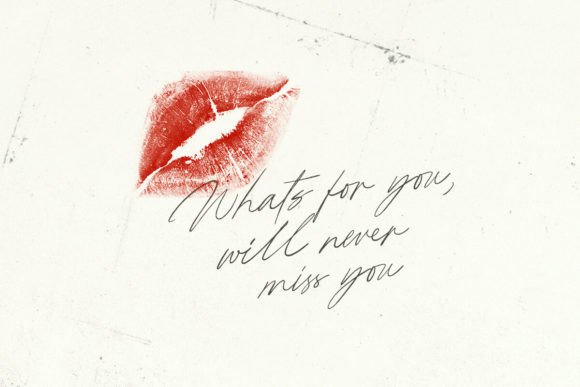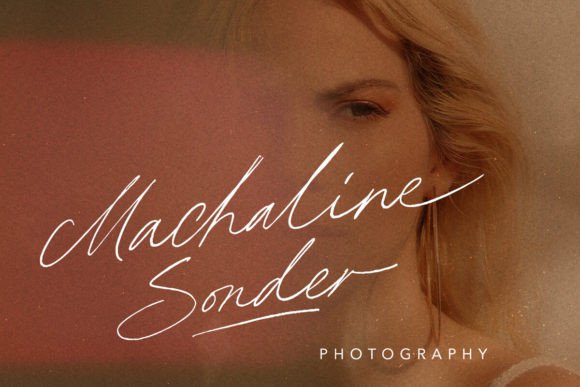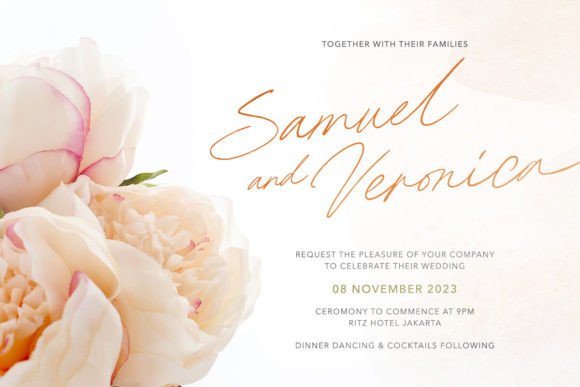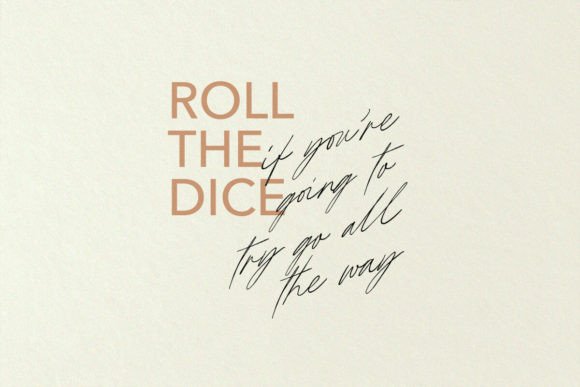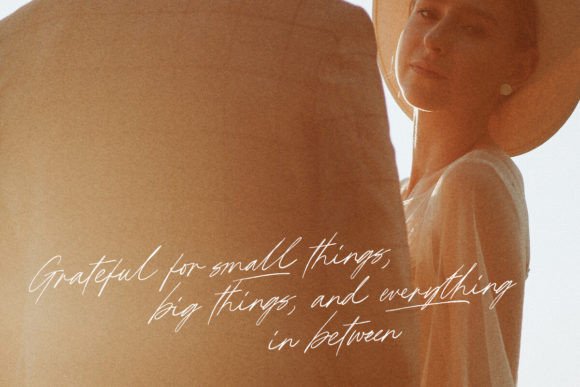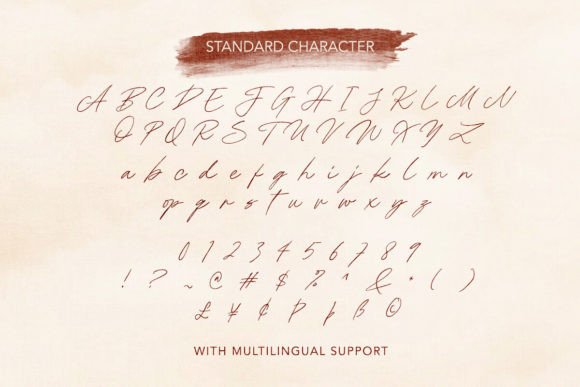
Introduction to Miss Phillips Font
Have you ever stared at a blank canvas, trying to find the perfect font to bring your creative vision to life? I know I have. As a designer, I’ve spent countless hours searching for the perfect script to elevate my projects and make them truly special. That’s why I’m excited to introduce you to the Miss Phillips Font, a stunning new handwritten script that’s about to become your new go-to design resource.
With its beautiful, high-quality design and transparent background, the Miss Phillips Font is perfect for a variety of creative projects, from quotes and branding to wedding invitations and more. What sets it apart is its extensive range of ligatures and alternates, making it easy to customize and add a personal touch to your designs.
Key Features of Miss Phillips Font
- High-quality design suitable for creative projects, including invitations, posters, and other design materials.
- Transparent background for easy customization and seamless integration into various design resources.
- Includes 2 font styles: regular and bold, for added versatility in design applications.
- Optimized for high-resolution printing and digital display, with a resolution of up to 300 DPI.
- Perfect for designers seeking a unique, elegant font to enhance their creative projects.
Honest Review: Miss Phillips Font
I recently had the chance to work with the Miss Phillips Font, and I must say, it’s been a game-changer for my creative projects. This high-quality font is a great addition to any designer’s toolkit.
- ✨ The font’s elegant and vintage feel makes it perfect for projects that require a touch of sophistication.
- ✨ The transparent background feature allows for seamless integration with any design element.
- ⚠️ The font’s range of styles and weights is somewhat limited, which may not be suitable for complex designs.
- ⚠️ The font’s legibility can be affected by the size and resolution of the design.
Overall, I’m impressed with the Miss Phillips Font. Its unique character and versatility make it a great design resource for creative projects. While it may have its limitations, I believe it’s a valuable addition to any designer’s collection.
Tips for Getting the Most Out of Miss Phillips Font
For the best results, use the Miss Phillips Font in combination with other high quality design elements. Experiment with different font sizes and colors to create a unique look. You can also use the font in conjunction with a transparent background to create a modern and creative design.
The Miss Phillips Font is perfect for a variety of creative projects, including logos, social media graphics, and presentations. Its high quality and transparent background make it a great design resource for any project, and the free download makes it easily accessible.